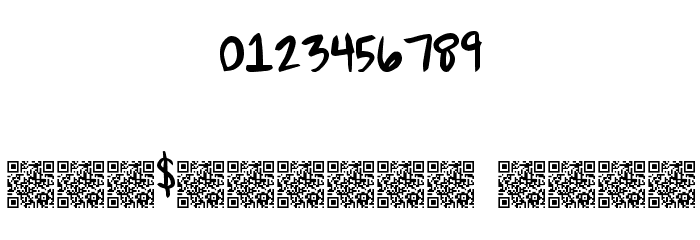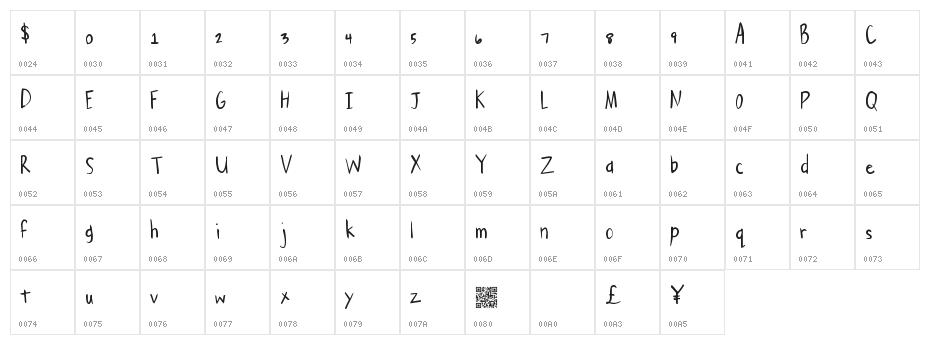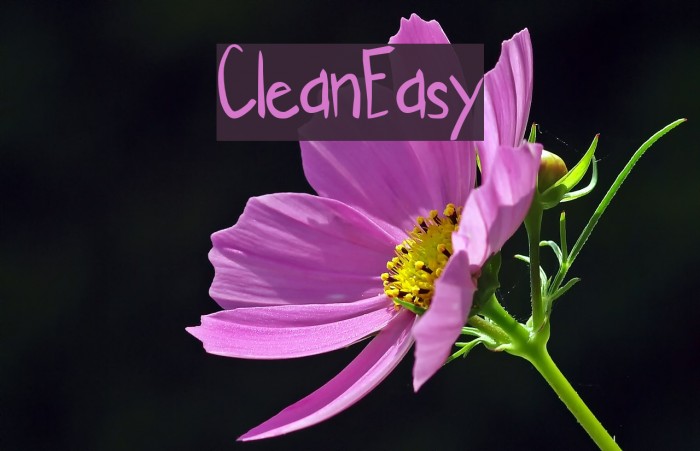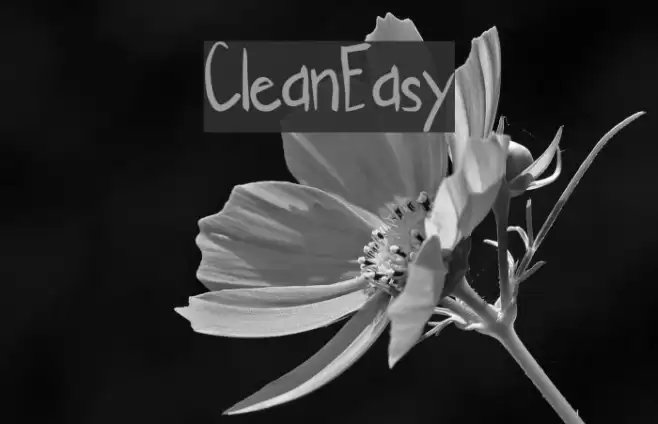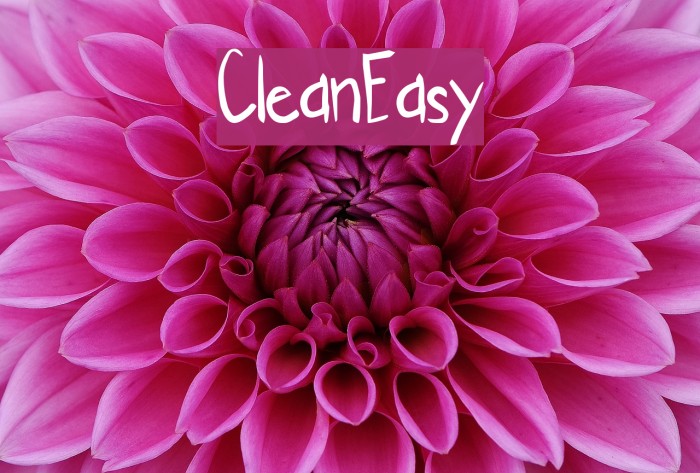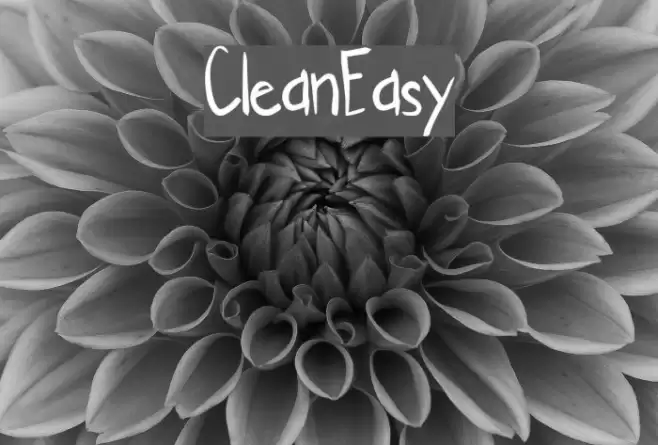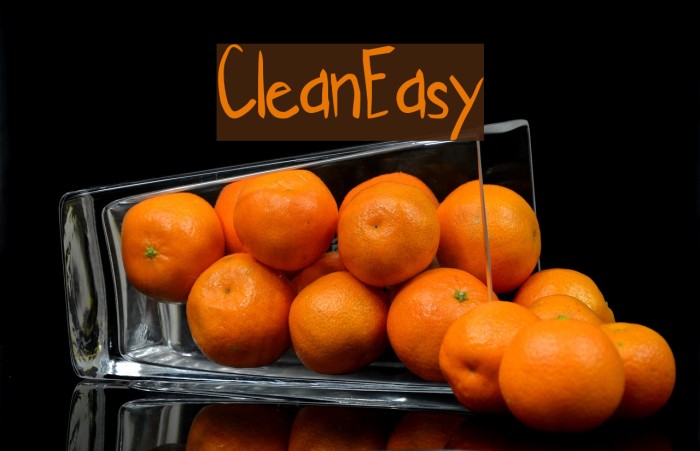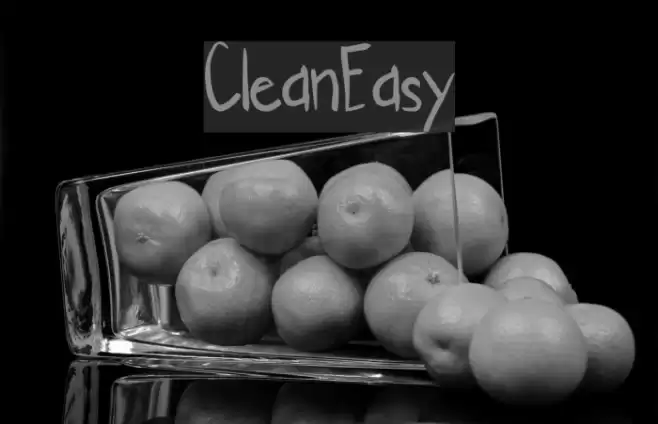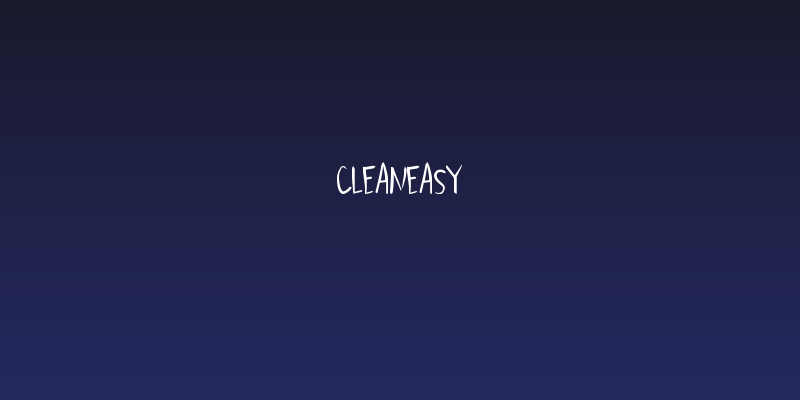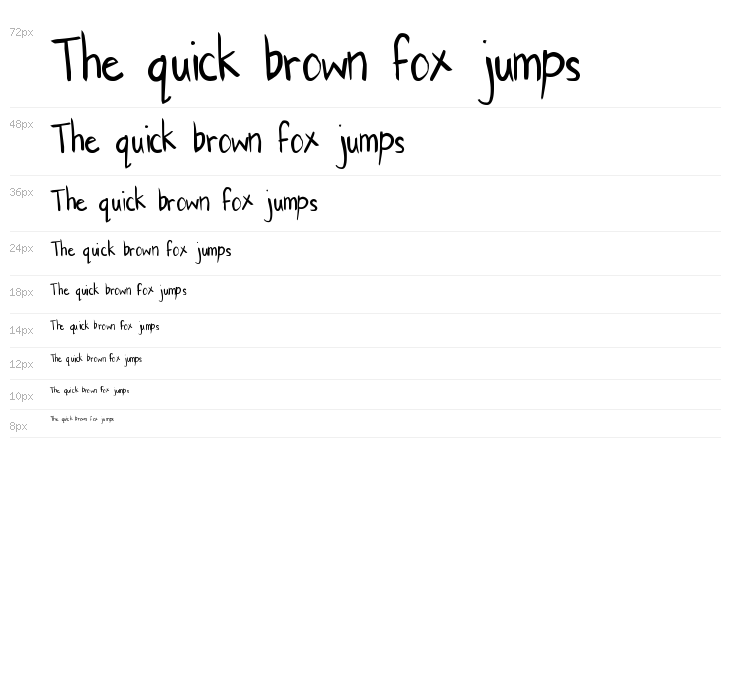
CleanEasy Font
CleanEasy Description
This font features a playful and casual handwritten style, characterized by its irregular strokes and slightly tilted letters. The uppercase letters are bold and prominent, while the lowercase letters maintain a consistent flow with a touch of whimsy. The numerals are clear and easy to read, matching the overall informal aesthetic. Special characters are integrated seamlessly, adding to the font's versatility. The design is approachable and friendly, making it suitable for projects that require a personal touch.
| Proposed Projects | Ideal for greeting cards, children's books, casual branding, and social media graphics. |